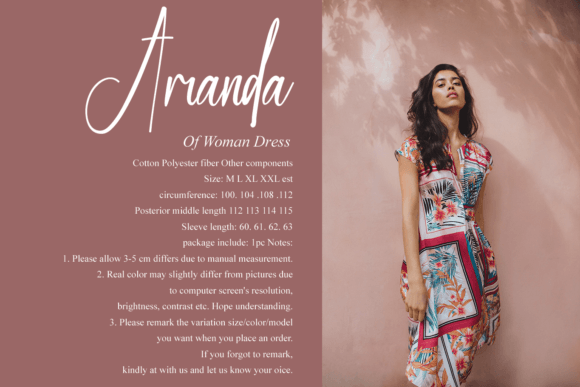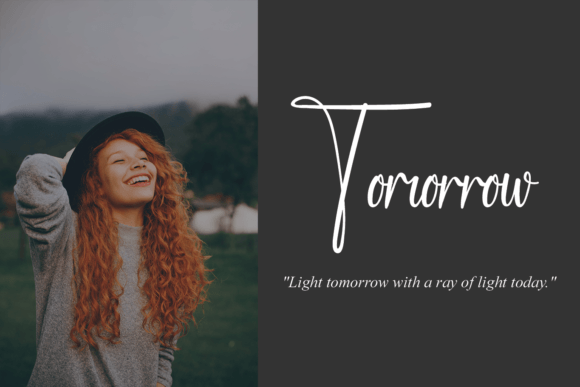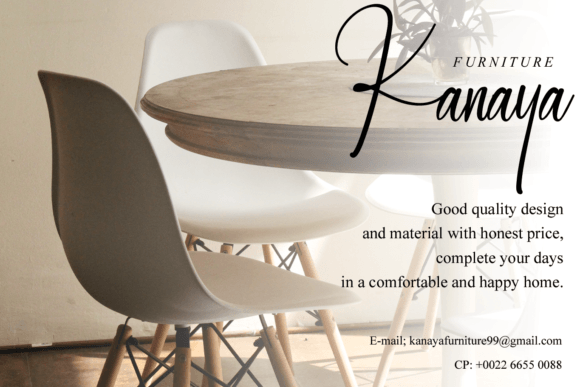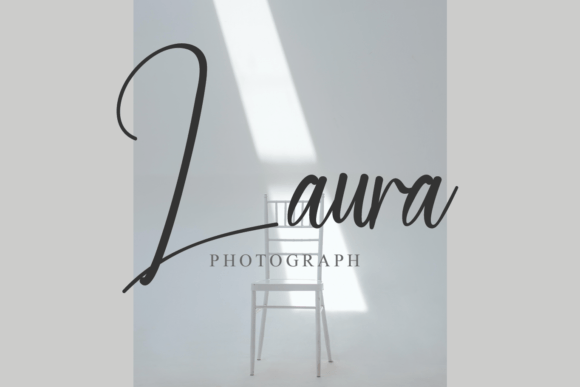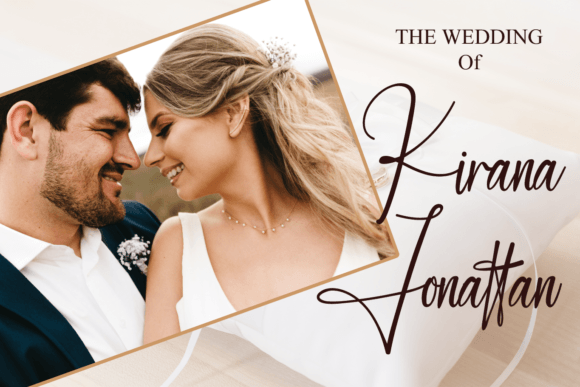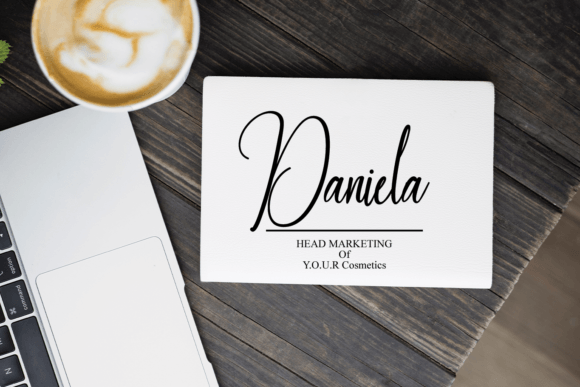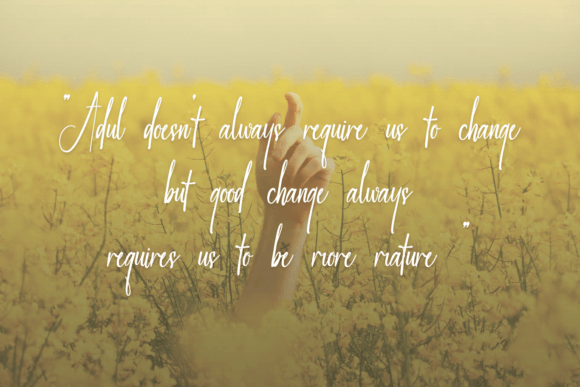
Housttely Font
About Housttely Font
“Housttely” is a romantic and sweet calligraphy script font that brings a touch of elegance to your creative designs. The characters in this font seem to dance along the baseline, adding a dynamic and graceful quality. This font is perfect for infusing a luxurious spark into any creative project.
The romantic and sweet characteristics of “Housttely” make it well-suited for a variety of design applications. Whether you’re working on wedding invitations, love letters, branding materials, or any project that requires a romantic flair, this calligraphy script font adds a sense of sophistication and charm.
The dancing characters along the baseline contribute to the font’s dynamic and lively nature. This feature not only adds visual interest but also enhances the overall romantic and luxurious atmosphere of your design.
“Housttely” is a versatile font that can elevate the aesthetic of your creative projects. Its calligraphy script style brings a touch of handwritten elegance, making it a valuable asset for anything from wedding stationery to branding materials where a romantic and luxurious spark is desired.
In summary, “Housttely” is more than just a font; it’s a romantic and sweet design tool that adds a luxurious spark to your creative projects. With its calligraphy script style and dancing characters, this font brings a sense of sophistication and romance, making it a delightful choice for a range of design endeavors.